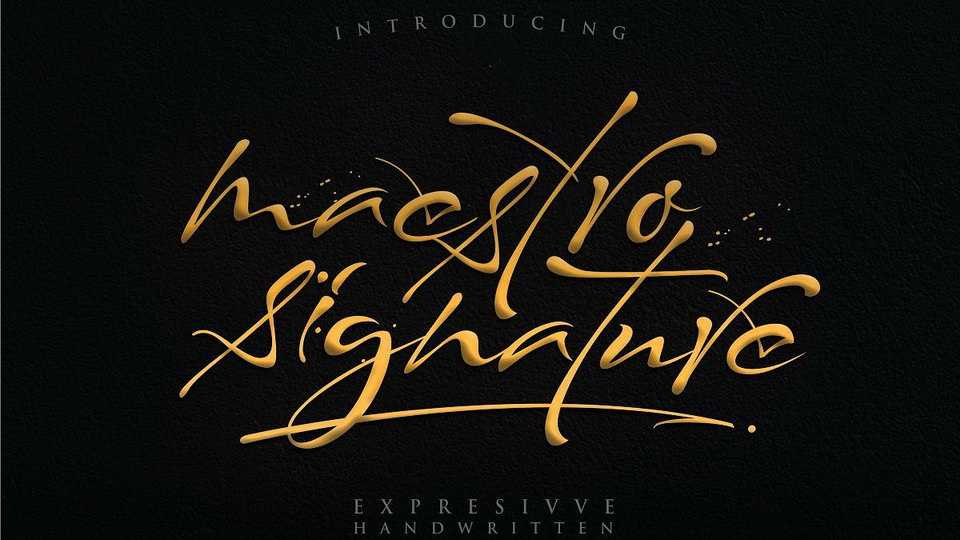
Download Maestro Signature font – an expressive calligraphy script signature that are very beautiful, luxurious and high class and very very classy and uniqly font. It’s perfect for making quote, signature watermark, signature logo, logo branding, book title, logo photography, watermark pgotography, social media, wedding invitations, taglines, headlines, and anything do you want.